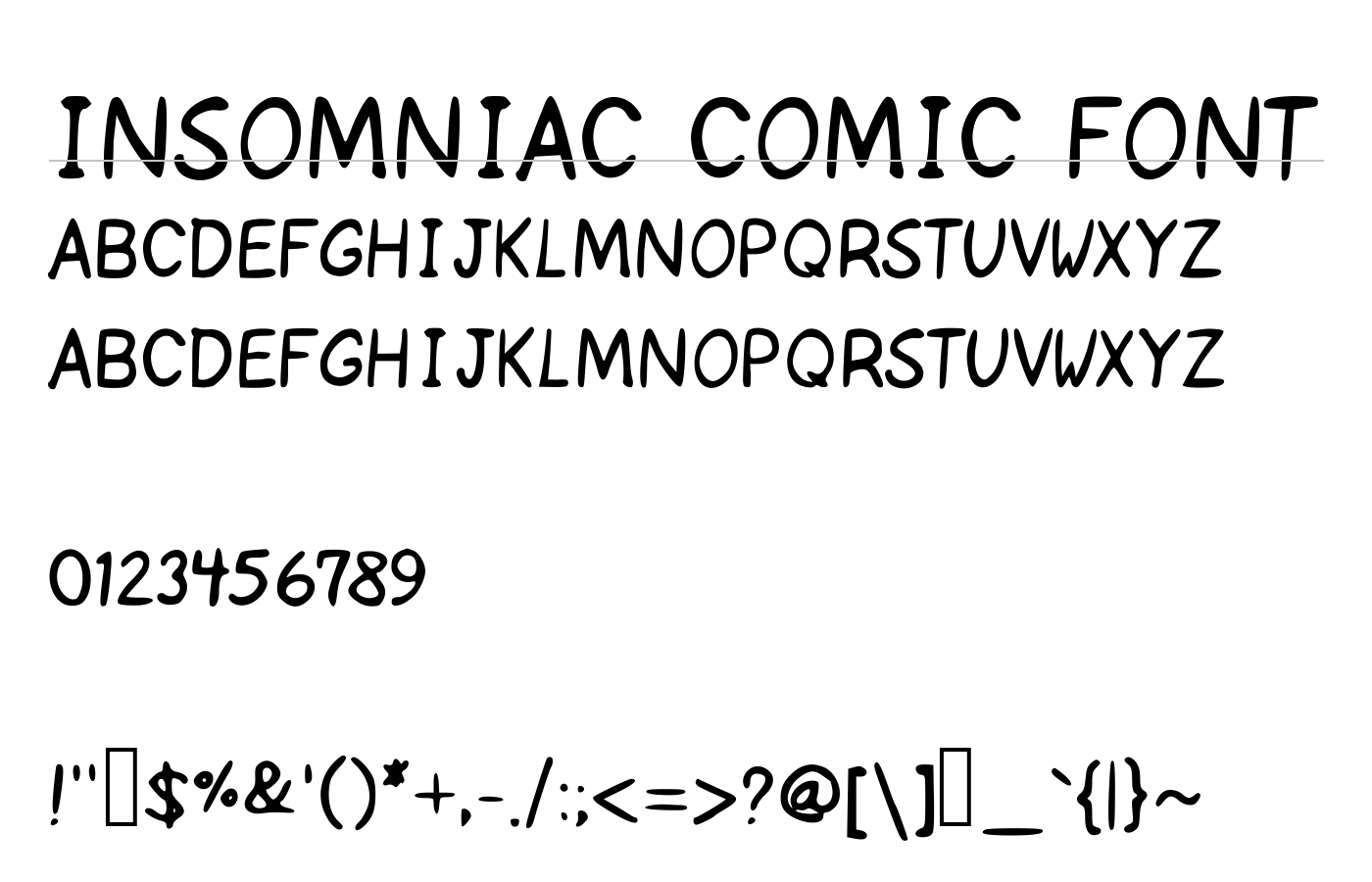
000_INSOMNIAC_COMIC_DIALOGUE is a playful, hand-drawn sans serif font with a casual, comic book feel. It features irregular, rounded strokes with a medium weight and open spacing, making it friendly and easy to read, ideal for dialogue bubbles, informal designs, and creative projects targeting a lighthearted or whimsical tone. This font works well in comics, children's materials, and any context where a personal, expressive touch is desired without sacrificing legibility.
000_INSOMNIAC_COMIC_DIALOGUE Font
About 000_INSOMNIAC_COMIC_DIALOGUE Font